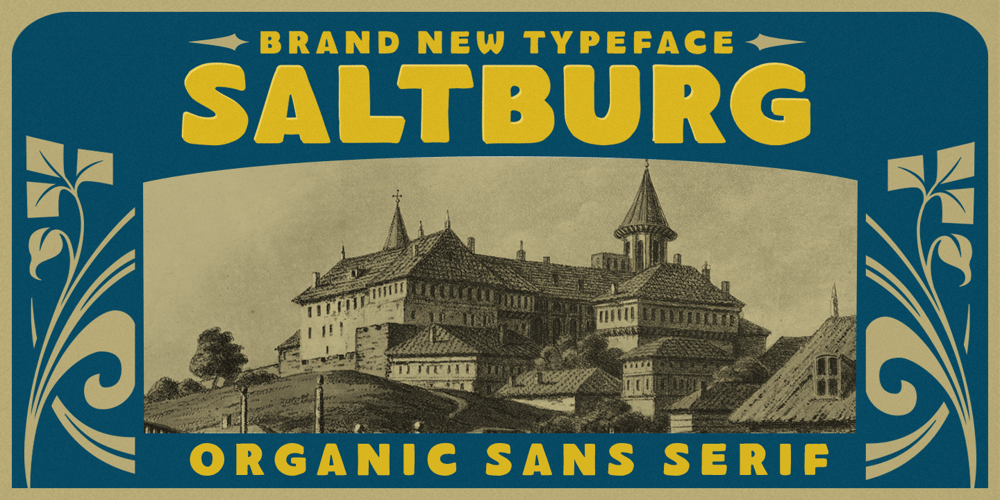
Saltburg
Saltburg font
Saltburg Font Family was designed by Hendry Juanda and published by Letterhend. Saltburg contains 2 styles and family package options. Introducing, Saltburg, an strong and bold sans serif with a touch of vintage look and feel. This type of font perfectly made to be applied especially in logo, headline, signage and the other various formal forms such as invitations, labels, logos, magazines, books, greeting / wedding cards, packaging, fashion, make up, stationery, novels, labels or any type of advertising purpose.Features : uppercase & lowercase numbers and punctuation multilingual alternates swashes and ligatures PUA encoded We highly recommend using a program that supports OpenType features and Glyphs panels like many of Adobe apps and Corel Draw, so you can see and access all Glyph variations.